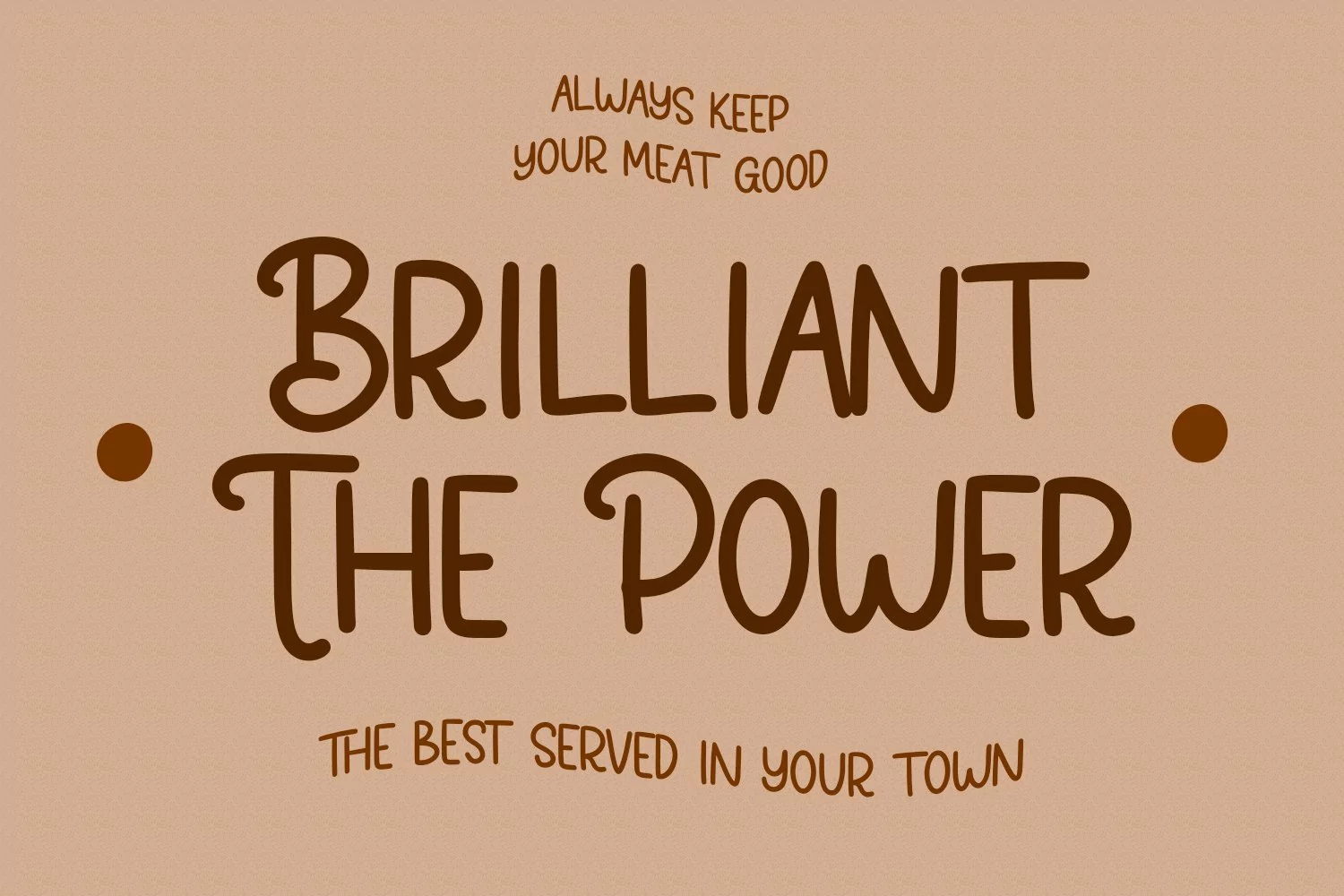
Loktherns is a handwritten display font. With mono-line stroke, upright, fun character. with a bit of ligatures and Small capital letter form. To give you an extra creative work. Loktherns font support multilingual more than 100+ language. This font is good for logo design, Social media, Movie Titles, Books Titles, a short text even a long text letter and good for your secondary text font with sans or serif. Make a stunning work with Loktherns font.